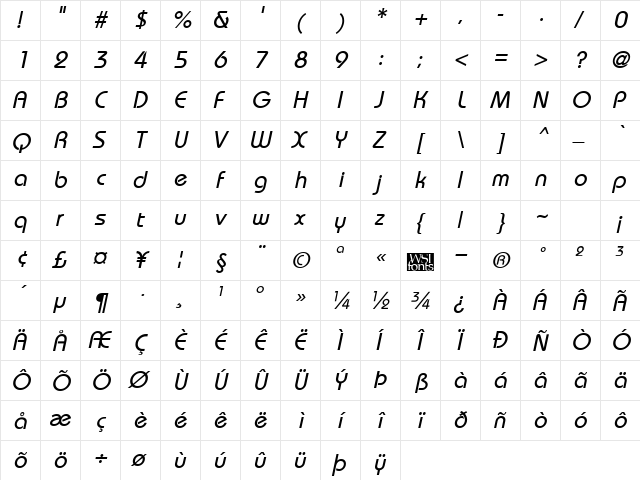
Bordeaux Italic
Design Context for Bordeaux Typeface
Bordeaux is a composed and adaptable typeface that performs quietly and consistently across a wide range of design contexts. Its italic angle brings a sense of urgency and motion to the letterforms.
Pro Tip: Try Bordeaux for annotation and caption copy alongside an upright companion — the contrast in angle creates a dynamic but ordered typographic system.